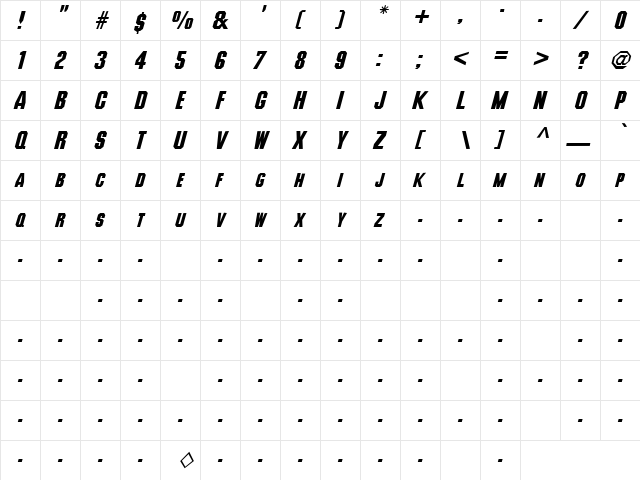
Subdivisions 1 Italic
Design Context for Subdivisions 1 Typeface
Subdivisions 1 offers clean, dependable letterforms without strong stylistic allegiance, making it a practical choice for designers who need flexibility. The dynamic lean of this cut emphasises speed and emphasis in any layout.